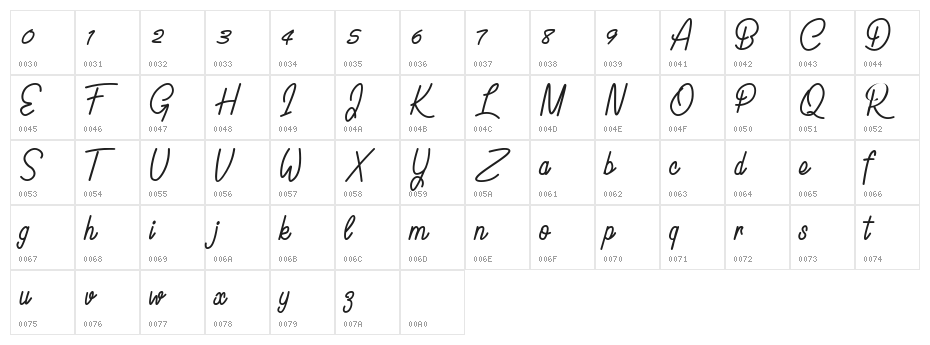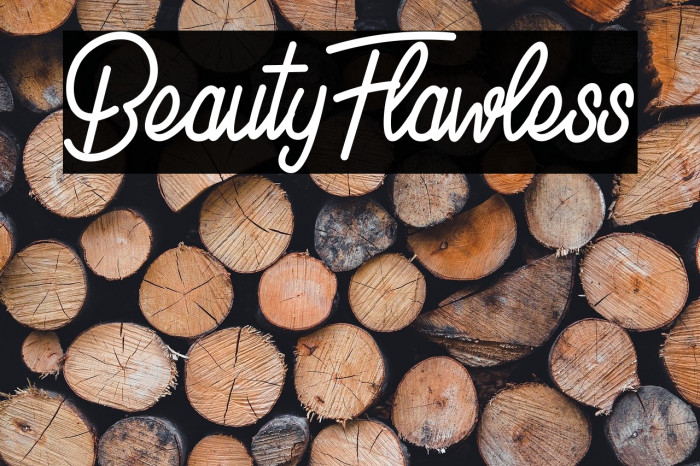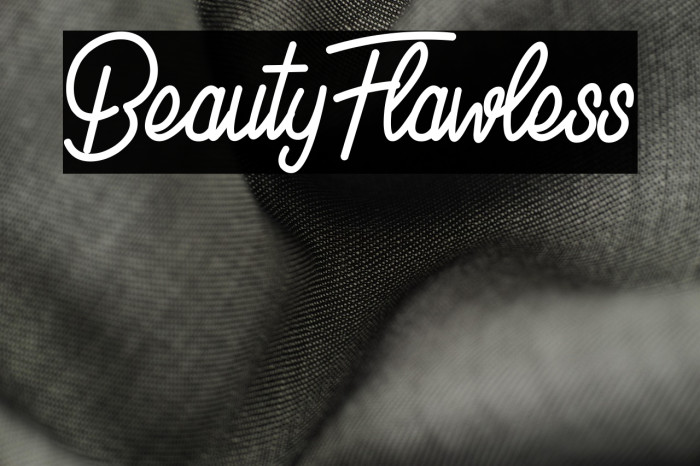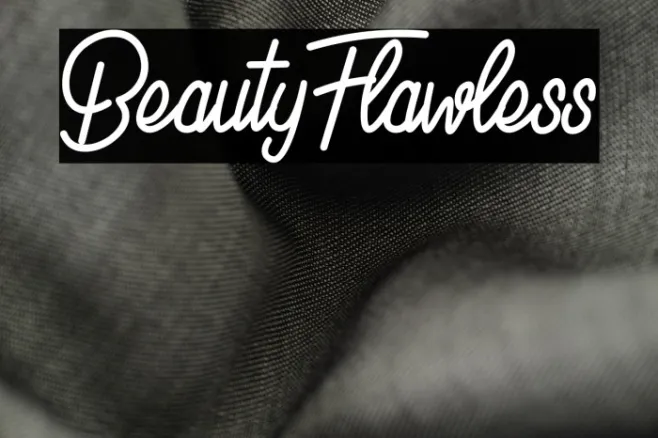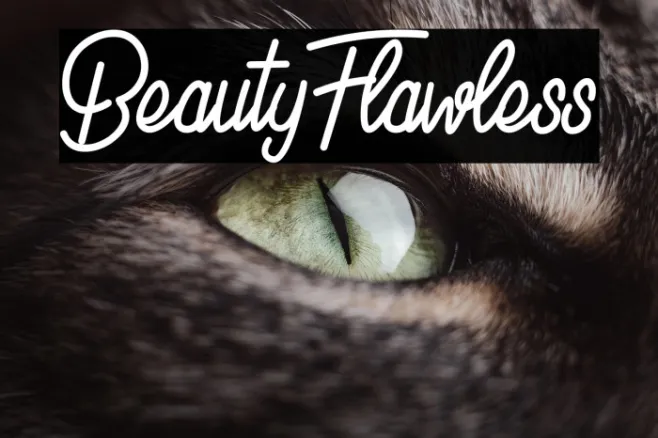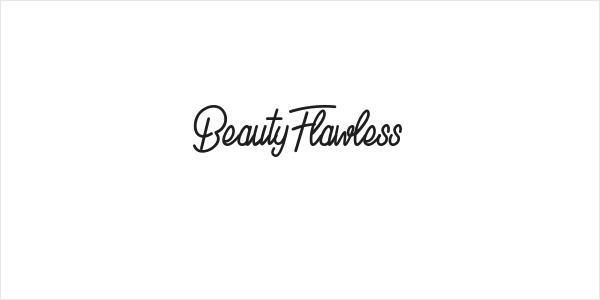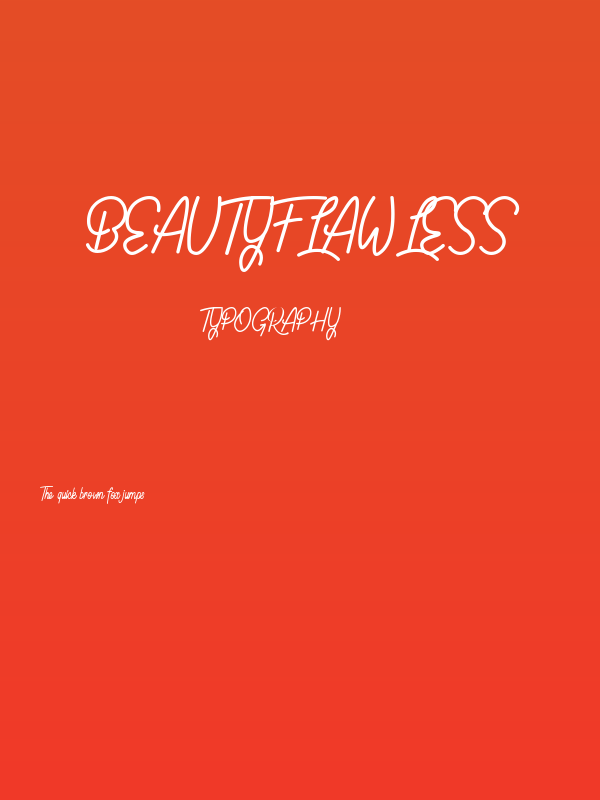
BeautyFlawless Font
BeautyFlawless Description
This font exudes a sense of elegance and fluidity, characterized by its cursive, handwritten style. The letters are connected with smooth, flowing strokes that give it a natural and personal touch. The uppercase letters are tall and slightly slanted, while the lowercase letters maintain a consistent baseline with gentle curves. The numerals are distinct yet harmonize well with the alphabet, maintaining the overall aesthetic. Special characters are crafted with the same attention to detail, ensuring they blend seamlessly with the rest of the font. This font is perfect for projects that require a touch of sophistication and personality.
| Overall Style | Elegant, Personal, Sophisticated |
| Proposed Projects | Ideal for wedding invitations, personal branding, greeting cards, and elegant packaging designs. |